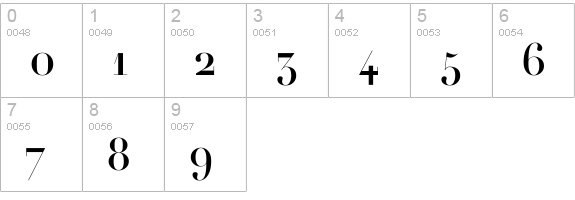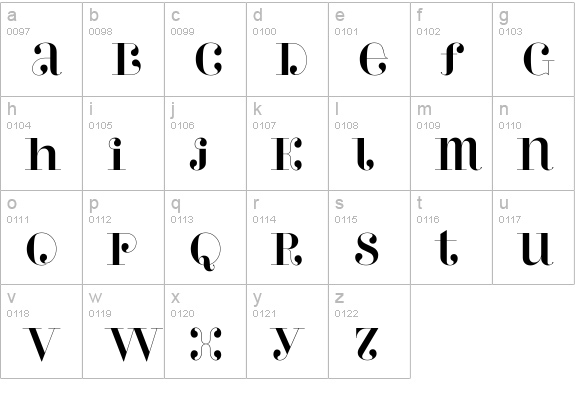
PerlaAlternate Font Details
PerlaAlternate font is a stunning typeface that exudes elegance and sophistication. Its intricate and stylish design makes it perfect for a wide range of creative projects. This font features beautifully crafted letterforms with alternate characters that add a touch of uniqueness and versatility to any design. What sets PerlaAlternate font apart is not just its aesthetic appeal, but also the fact that it is available for free. Yes, you heard that right! This exquisite font can be downloaded for free at FontsMarket.com, ensuring that you have access to high-quality typography without having to spend a dime. Whether you are designing a logo, creating eye-catching posters, or crafting stunning invitations, PerlaAlternate font will elevate your designs to new heights. Its elegant curves and well-balanced proportions make it a perfect choice for both digital and print projects. With PerlaAlternate font, you can bring a touch of sophistication to your designs effortlessly. Its versatile nature allows it to be used in various contexts, from formal and corporate designs to more creative and whimsical projects. This font is designed to make a statement and leave a lasting impression on your audience. So don't miss out on the opportunity to enhance your designs with PerlaAlternate font. Download it for free today at FontsMarket.com and unleash your creativity with this exquisite typeface.